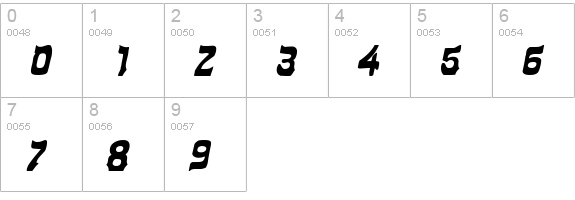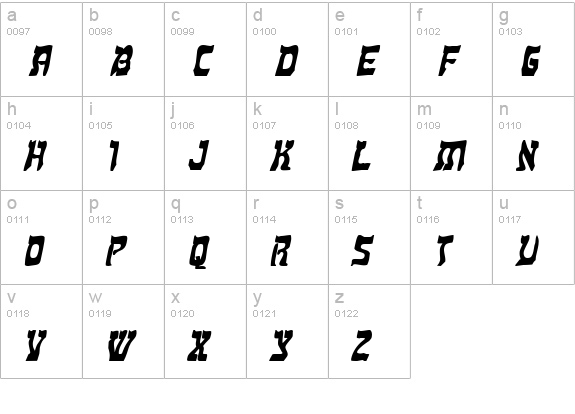
Kosher Wide BoldItalic is a distinctive, extended-width variant in the Kosher typeface family \xE2\x80\x94 well suited to design and typography projects.
Kosher Wide BoldItalic is a striking and elegant font that exudes sophistication and modernity. Its bold and italic design brings a unique flair to any project, making it perfect for eye-catching headlines, logos, and branding materials. This font is not only visually appealing but also highly versatile, suitable for a wide range of design applications. What sets Kosher Wide BoldItalic apart is its adherence to strict kosher guidelines, ensuring that it meets the highest standards of quality and authenticity. This attention to detail results in a font that is both visually stunning and culturally significant, making it a valuable addition to any designer's toolkit. Best of all, Kosher Wide BoldItalic is available for free download at FontsMarket.com. This means that you can enjoy all the benefits of this exceptional font without any cost, allowing you to elevate your design projects without breaking the bank. Don't miss out on the opportunity to enhance your work with the distinctive style of Kosher Wide BoldItalic - download it today and see the difference for yourself.